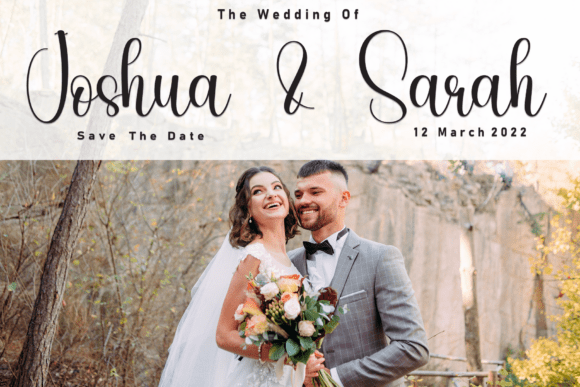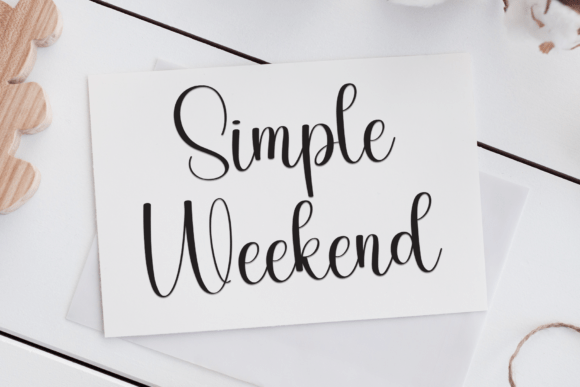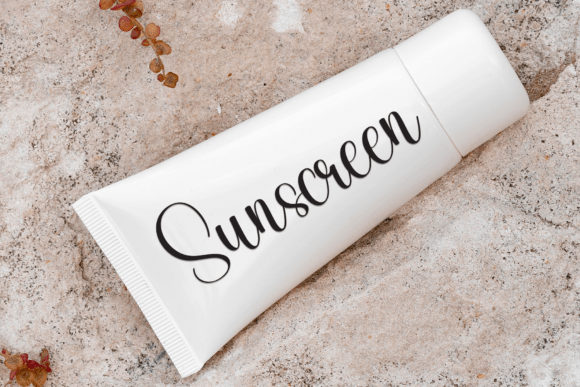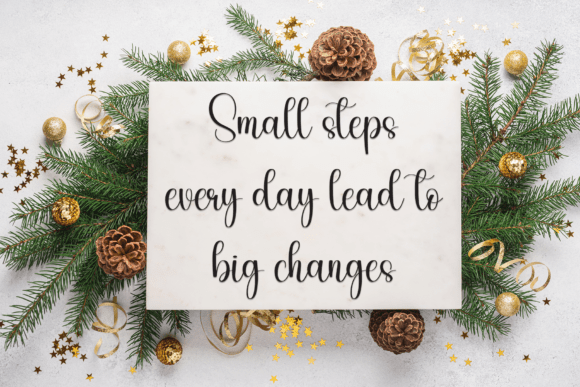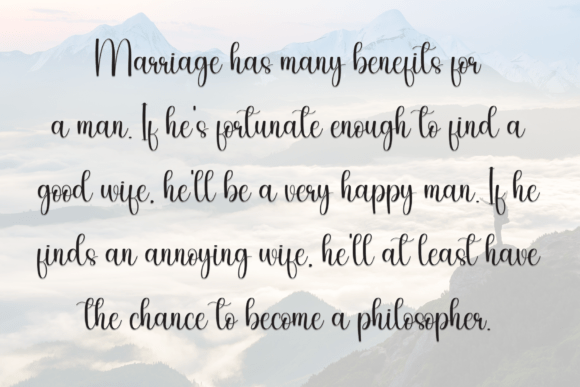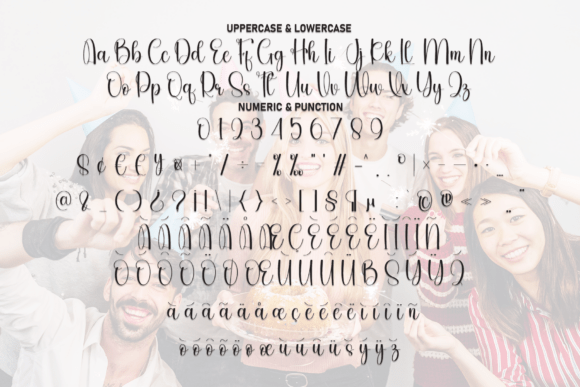
Introducing the Enchanting Birthday Font: Elevate Your Designs with Whimsical Charm
Are you a designer or crafter seeking a typographic treasure that embodies the essence of joy, positivity, and festivity? Look no further! Our captivating Birthday Font is here to revolutionize your creative projects, infusing them with a unique blend of cozy energy and sweet allure. This one-of-a-kind handwritten font is specifically crafted to meet your artistic needs, making it the perfect tool for crafting charming wedding invitations, bewitching greeting cards, and other design masterpieces.
The Magic of Birthday Font
Our Birthday Font is more than just a typographic style – it’s an experience. With its whimsical and enchanting charm, this font has the power to transform your designs into captivating narratives that ignite joy and kindle positivity. Whether you’re a seasoned designer or a crafty enthusiast, this font will become your gateway to unlocking a world of creative possibilities. Its distinct character and flair will add a touch of magic to your projects, setting them apart from the ordinary and making them truly unforgettable.
Unleash Your Creativity with Birthday Font
With Birthday Font, your creative vision knows no bounds. This versatile typeface serves as a bridge, seamlessly converting your thoughts, feelings, and worldview into a bewitching narrative that resonates with your audience. Whether you’re designing wedding invitations, greeting cards, or other celebratory materials, this font will help you convey your message with style and sophistication. Its unique charm and character will add a personal touch to your designs, making them feel more approachable, friendly, and engaging.
Why Choose Birthday Font?
So, what sets Birthday Font apart from other typographic styles? Here are just a few reasons why designers and crafters alike will fall in love with this enchanting font:
- Unique Character: Birthday Font boasts a distinct and captivating personality that will add a touch of whimsy to your designs.
- Cozy Energy: This font exudes a warm and inviting vibe, perfect for creating designs that feel friendly, approachable, and celebratory.
- Sweet Allure: With its sweet and charming aesthetic, Birthday Font is sure to captivate your audience and leave a lasting impression.
- Versatility: This font is perfect for a wide range of design projects, from wedding invitations and greeting cards to party decorations and social media graphics.
In conclusion, Birthday Font is a game-changing typographic style that’s sure to elevate your designs and captivate your audience. With its unique character, cozy energy, and sweet allure, this font is the perfect tool for designers and crafters seeking to infuse their projects with a touch of whimsical enchantment. So why wait? Unlock the magic of Birthday Font today and discover a world of creative possibilities waiting to be explored!